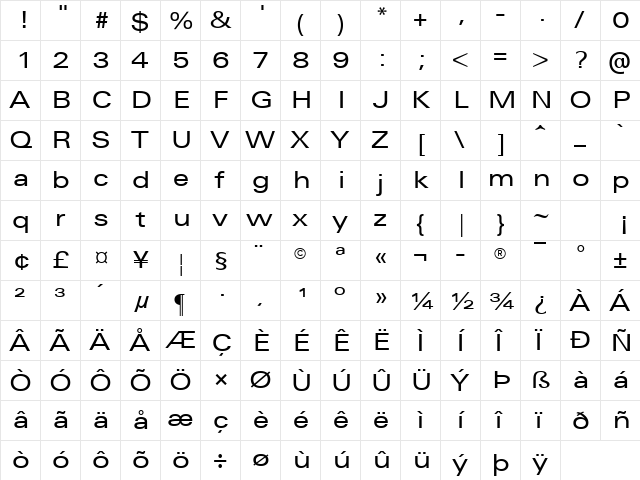
Univers Extended Medium
Design Context for Univers Extended Typeface
Univers Extended takes a measured approach to typography — its balanced proportions and neutral character make it a reliable workhorse for both digital and print work.